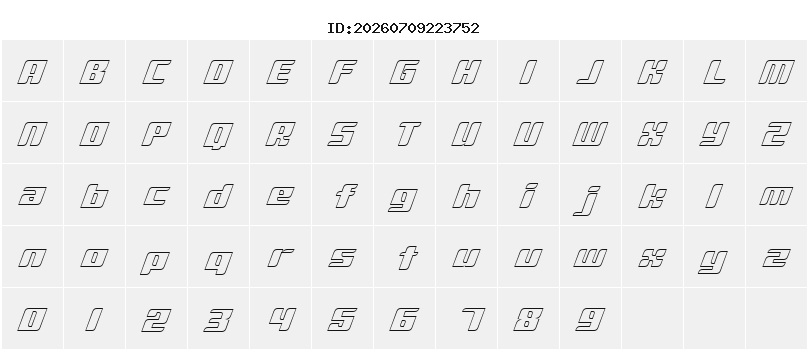
• Font Name: D3 Surfism_IO
• Font ID: D3 Surfism_IO
• Full Font Name: D3 Surfism_IO
• PostScript Name: D3 Surfism_IO
About D3 Surfism_IO.ttf
D3 Surfism_IO.ttf is a modern, elegant sans-serif font designed for ultimate readability and visual harmony. Perfect for branding, headlines, web design, and print materials.